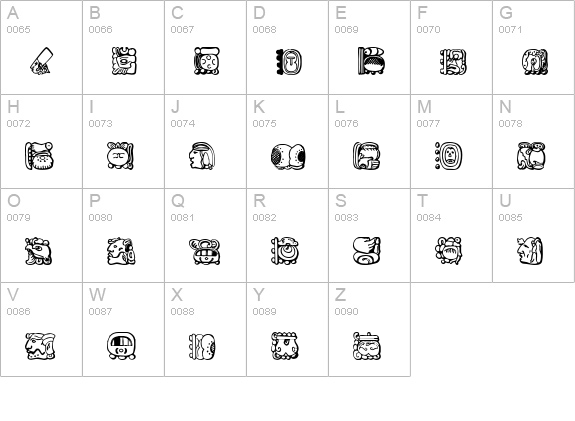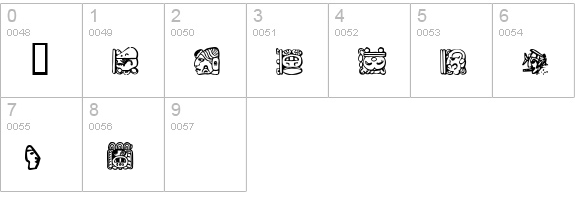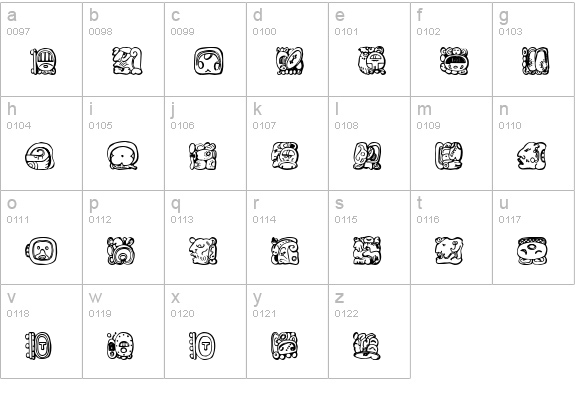
Mayan Dingbats Font Details
The Mayan Dingbats font is a unique and intricate typeface that draws inspiration from the rich cultural heritage of the ancient Mayan civilization. Featuring a collection of symbols and glyphs reminiscent of Mayan art and iconography, this font is perfect for adding a touch of mystique and historical significance to your design projects. Created with attention to detail and authenticity, the Mayan Dingbats font captures the essence of the enigmatic Mayan culture, making it an excellent choice for those seeking to incorporate a sense of mystery and intrigue into their designs. Best of all, the Mayan Dingbats font is available for free download at FontsMarket.com, allowing you to easily access and use this captivating typeface in your creative endeavors. Embrace the allure of the Mayan civilization with this stunning font and elevate your designs to new heights of sophistication and cultural richness.